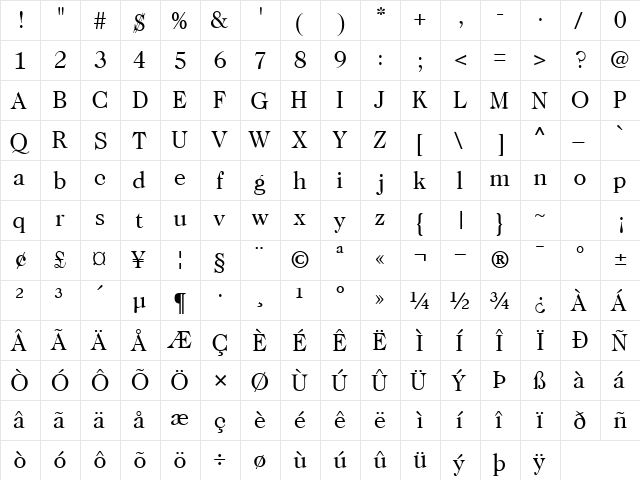
CaslonTwoSSK Regular
Design Context for CaslonTwoSSK Typeface
CaslonTwoSSK takes a measured approach to typography — its balanced proportions and neutral character make it a reliable workhorse for both digital and print work.